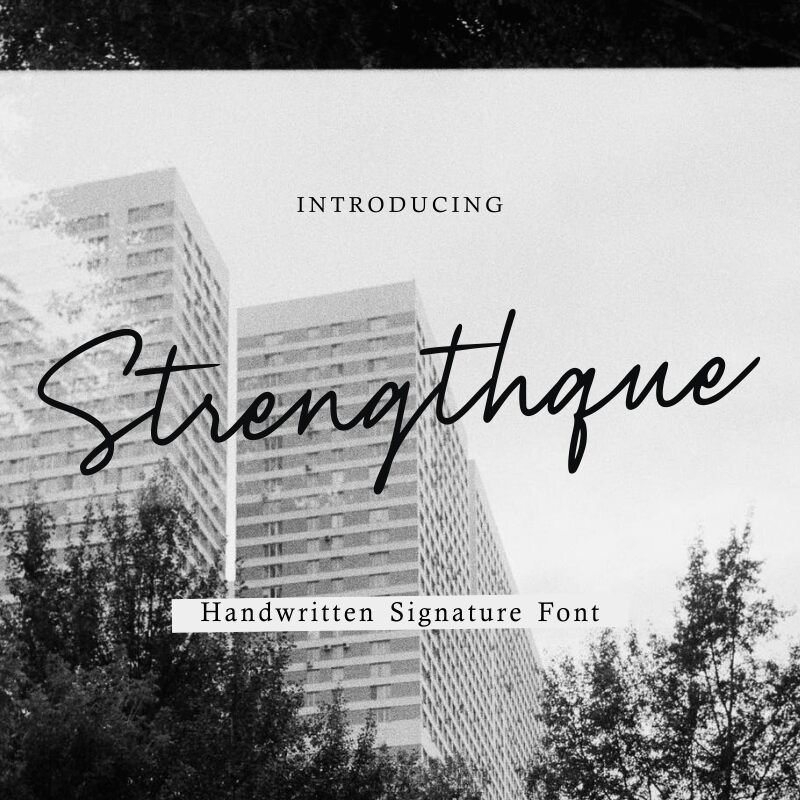
Strengthque
Strengthque, the exquisite creation by Allouse Studio, is a captivating handwritten font that exudes elegance and sophistication. With its delicate strokes and graceful curves, it adds a touch of refinement to any project. The light weight of this font lends itself perfectly to designs that crave a subtle yet impactful aesthetic. From wedding invitations to branding materials, Strengthque is the ideal choice for projects seeking a balance between modernity and classic beauty. Let this remarkable typeface elevate your creations and leave a lasting impression on your audience.